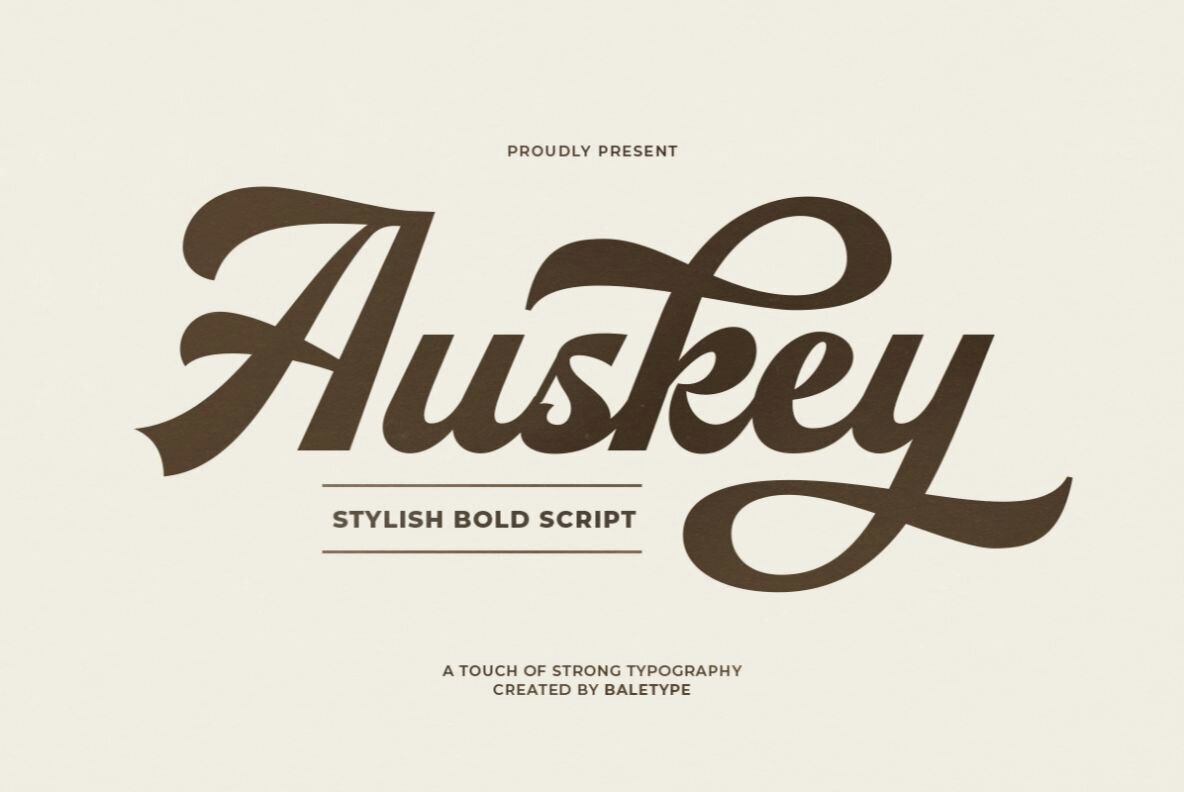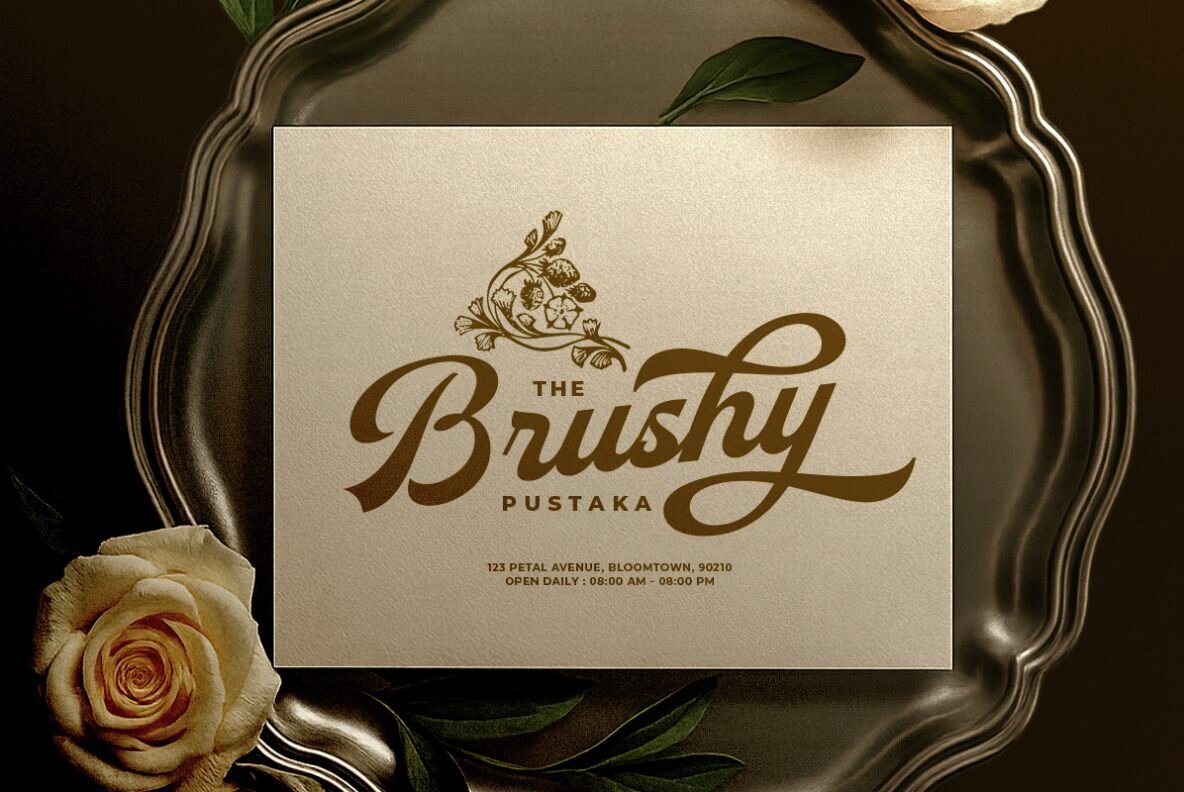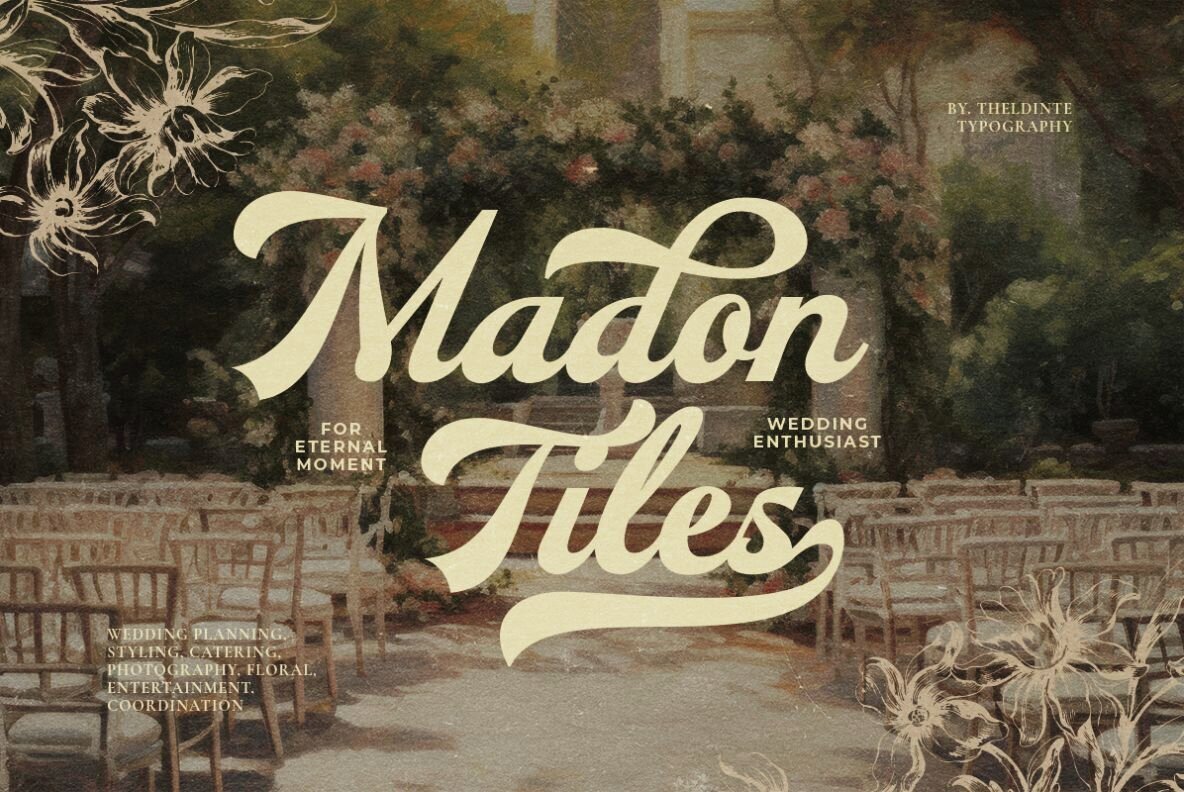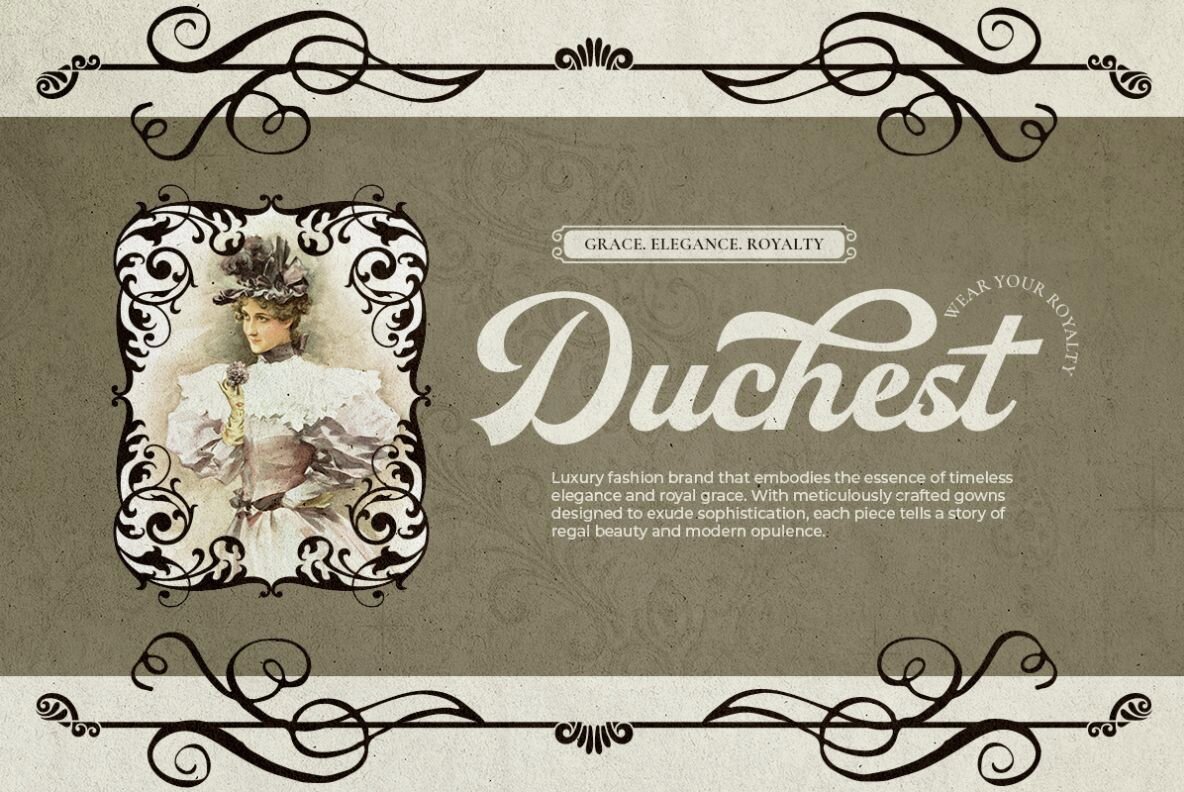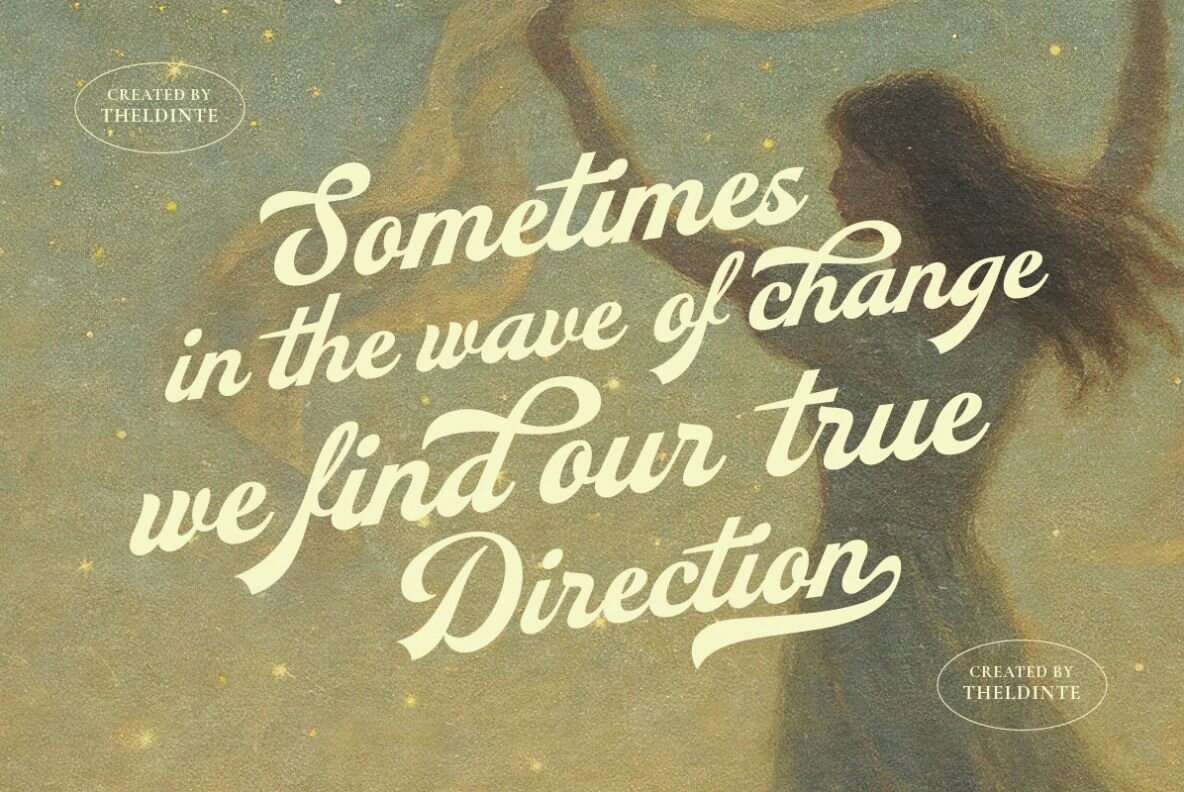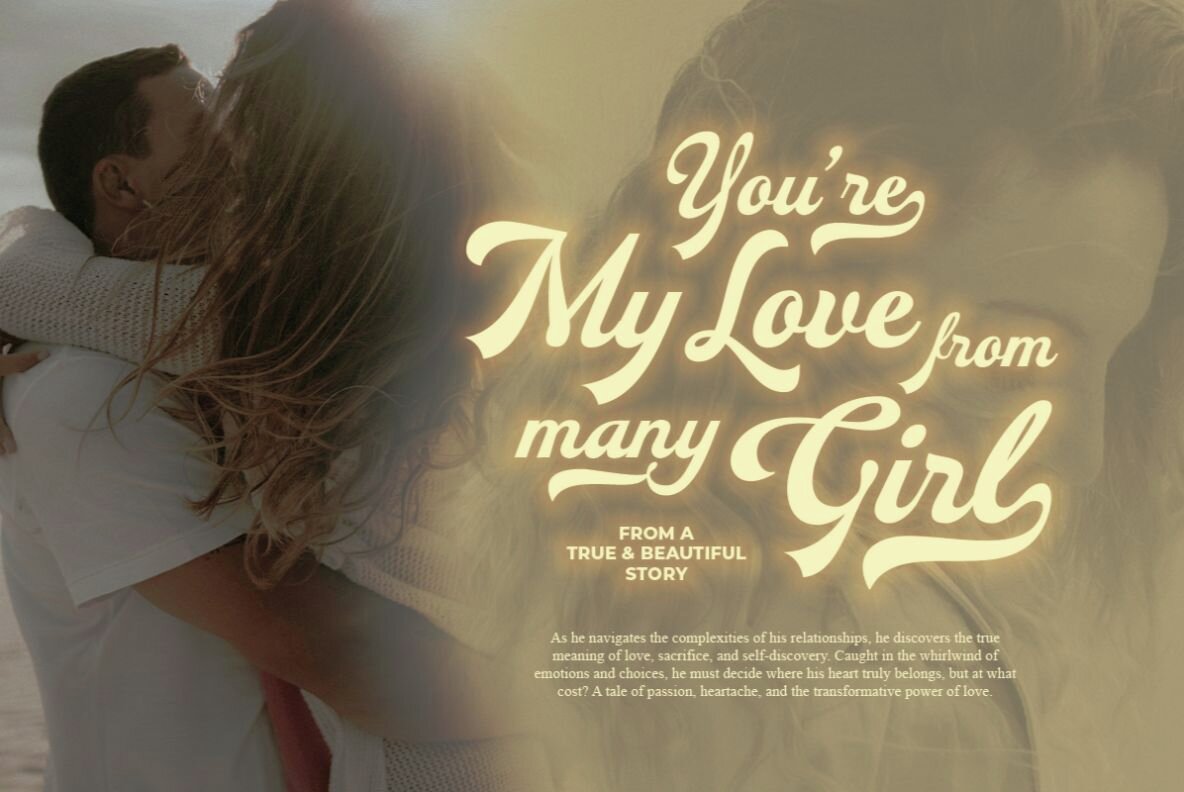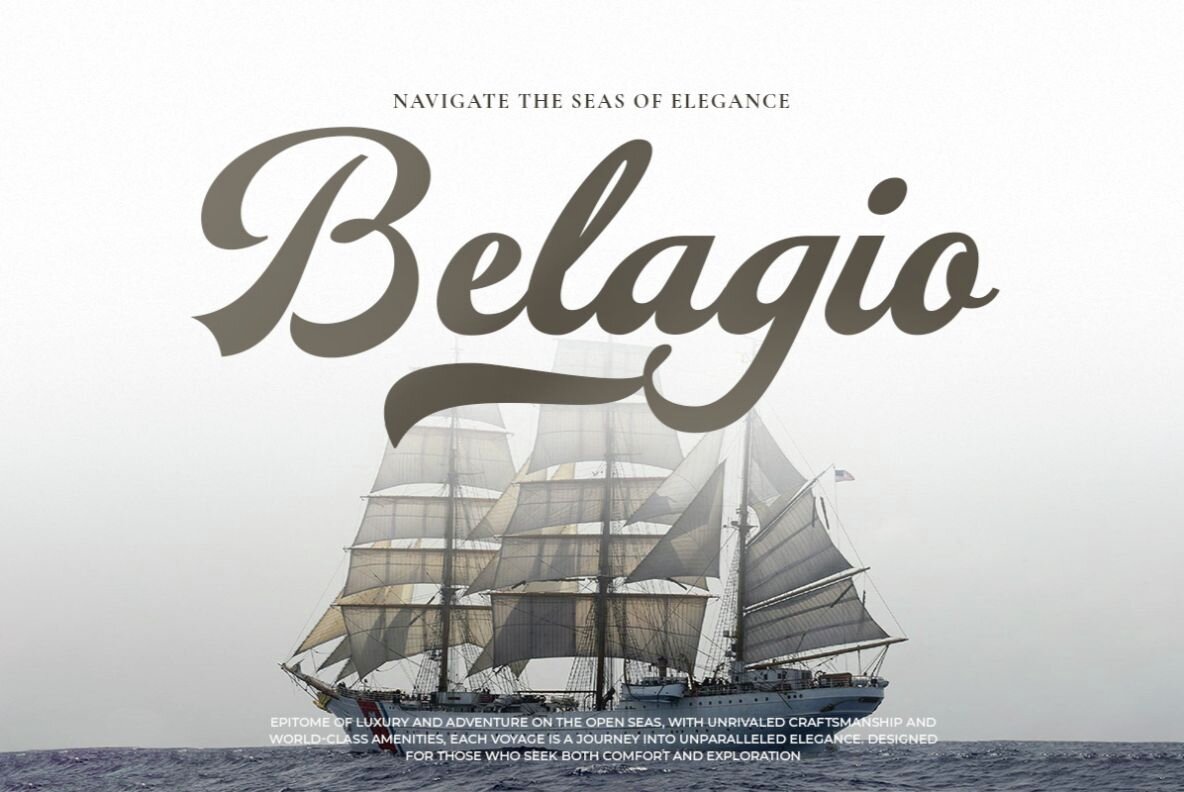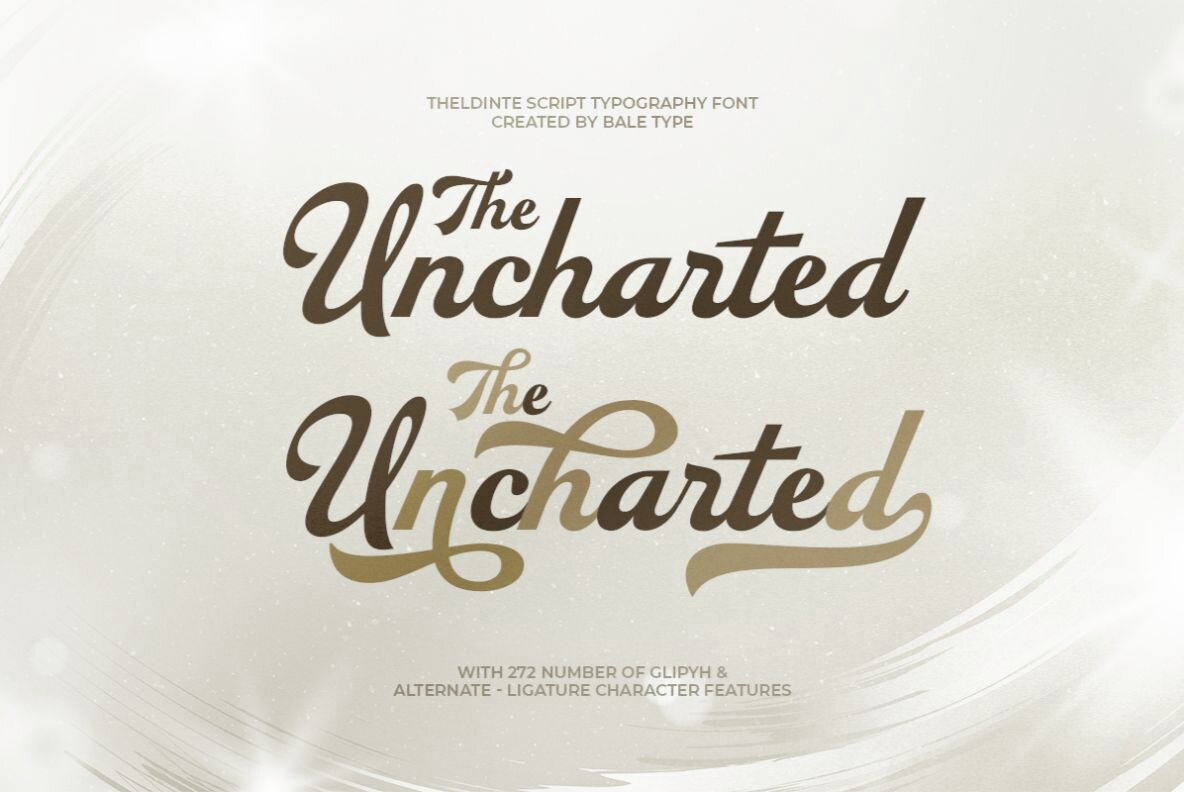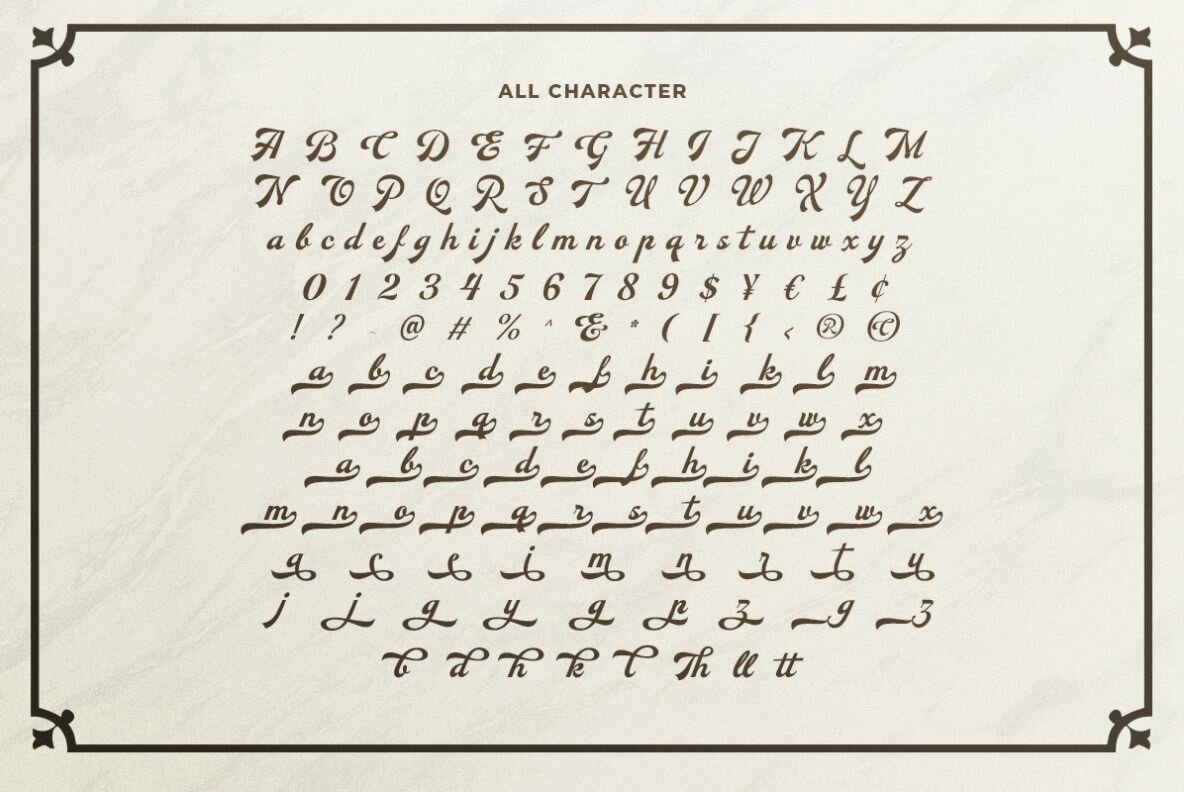
Auskey Font
Auskey Regular
With its clean lines and distinctive flair, Auskey offers a vibrant retro elegance that enhances any design project. Ideal for logotypes, quotes, and branding, this script font infuses character and sophistication into your work. Its unique aesthetic also makes it suitable for wedding invitations, imparting both personalization and allure.Auskey: Bold Script With Retro Charm